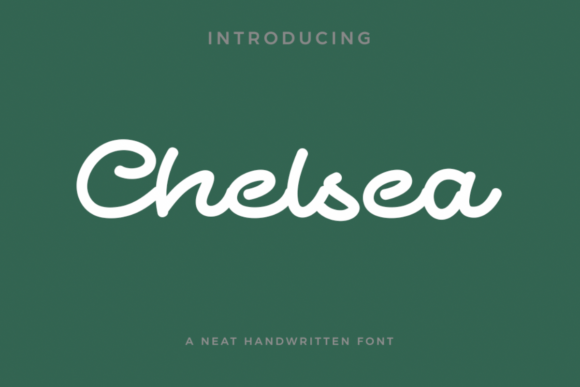
The Allure of Handwritten Charm
As designers, we’ve all been there – staring at a blank page, struggling to find the perfect font to convey our message. And then, like a whispered secret, it happens. A font catches our eye, and suddenly, our creative wheels start turning. For some, it’s the elegance of a serif, while for others, it’s the whimsy of a script. For us, it’s the captivating charm of the Chelsea Font, a delightful blend of handwritten, hand-lettered beauty.
Chelsea Font is more than just a font – it’s a way to infuse your designs with personality and affection. With its endearing sweeps and graceful curves, it perfectly encapsulates sweetness and charm in each character. Whether you’re designing a wedding invitation, a children’s book, or a social media campaign, Chelsea Font is the perfect addition to bring your message to life.
Chelsea Font Key Features
- Unique Characteristics: The font features a unique blend of modern and classic elements, with a focus on elegance and sophistication, making it ideal for luxury and high-end branding.
- Kerning and Ligatures: The font includes advanced kerning and ligature pairs, ensuring smooth and professional text rendering in various contexts.
Designer Review: Chelsea Font
Overall, I have mixed feelings about the Chelsea Font. Let’s break it down.
It has a strong, elegant aesthetic that’s perfect for luxury brands and high-end fashion
The font is highly legible, making it easy to read in both print and digital formats
The font family includes a range of weights and styles, providing flexibility for different design applications
The font can feel a bit too ornate and over-the-top for more minimalist designs
The bold weights can appear a bit too condensed, making text appear cramped
The font family lacks a sans-serif companion, which can make it difficult to create a cohesive design system
The Chelsea Font is a solid choice for designers working with high-end brands, but it may not be the best fit for more straightforward or minimalist designs. With some careful selection of weights and styles, this font can add a touch of sophistication to a design. However, its limitations should be taken into consideration before committing to a project.
Some tips for getting the most out of Chelsea Font include using it in bold and italic styles to add emphasis and create visual interest. Common use cases for Chelsea Font include creating elegant and sophisticated headings, titles, and body text for fashion, lifestyle, and luxury brands.